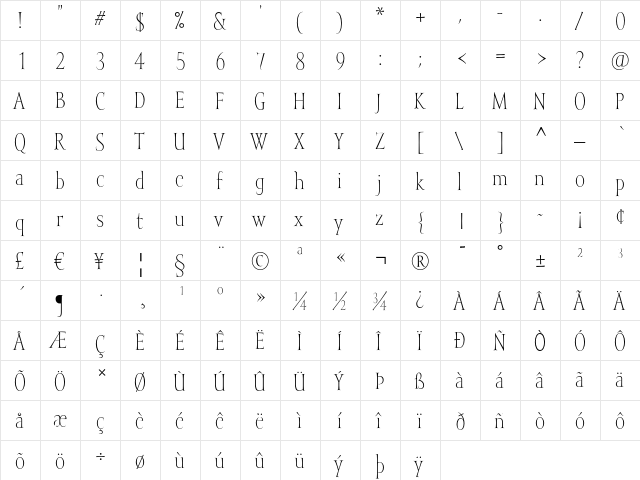
Mramor Light Light
Design Context for Mramor Light Typeface
Mramor Light is a composed and adaptable typeface that performs quietly and consistently across a wide range of design contexts. Its slender proportions lend an understated elegance to any composition.
Pro Tip: Pair Mramor Light with a font of contrasting weight or personality to build a more expressive typographic hierarchy.